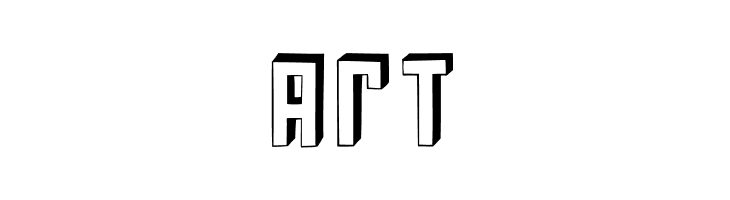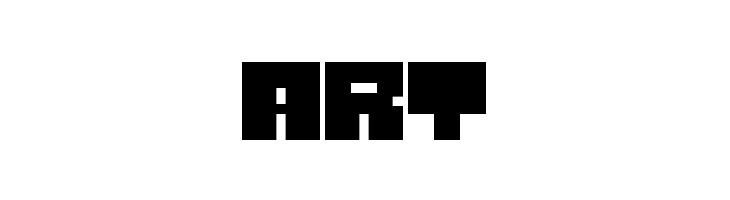
An edgy, gothic-inspired font with sharp, irregular edges and a dramatic appearance.
Ornate, pictorial font with devil and mythological illustrations.
A bold, jagged font with sharp, thorn-like edges for a dramatic and edgy look.
A bold, geometric display font with octagonal emblem motifs and strong contrast.
An ornate, vintage-style font with intricate flourishes and bold, decorative elements.
A playful, handwritten font with rounded edges and a casual style.
A dynamic, cursive script font with elegant italic styling.
A bold, angular font with a digital and gothic style.
A bold, geometric font with a digital, tech-inspired design.
A playful, handwritten font with bold, irregular strokes and a lively appearance.
A decorative font with playful elephant illustrations as characters.
A bold, italic font with a dynamic and energetic style.
A bold and assertive font with thick strokes and high legibility.
A bold, vintage-style font with playful serifs and high contrast.
A bold, playful font with decorative swashes and high contrast.
A graceful and elegant script font with flowing, connected strokes.
A bold, playful font with a hand-drawn, organic feel.